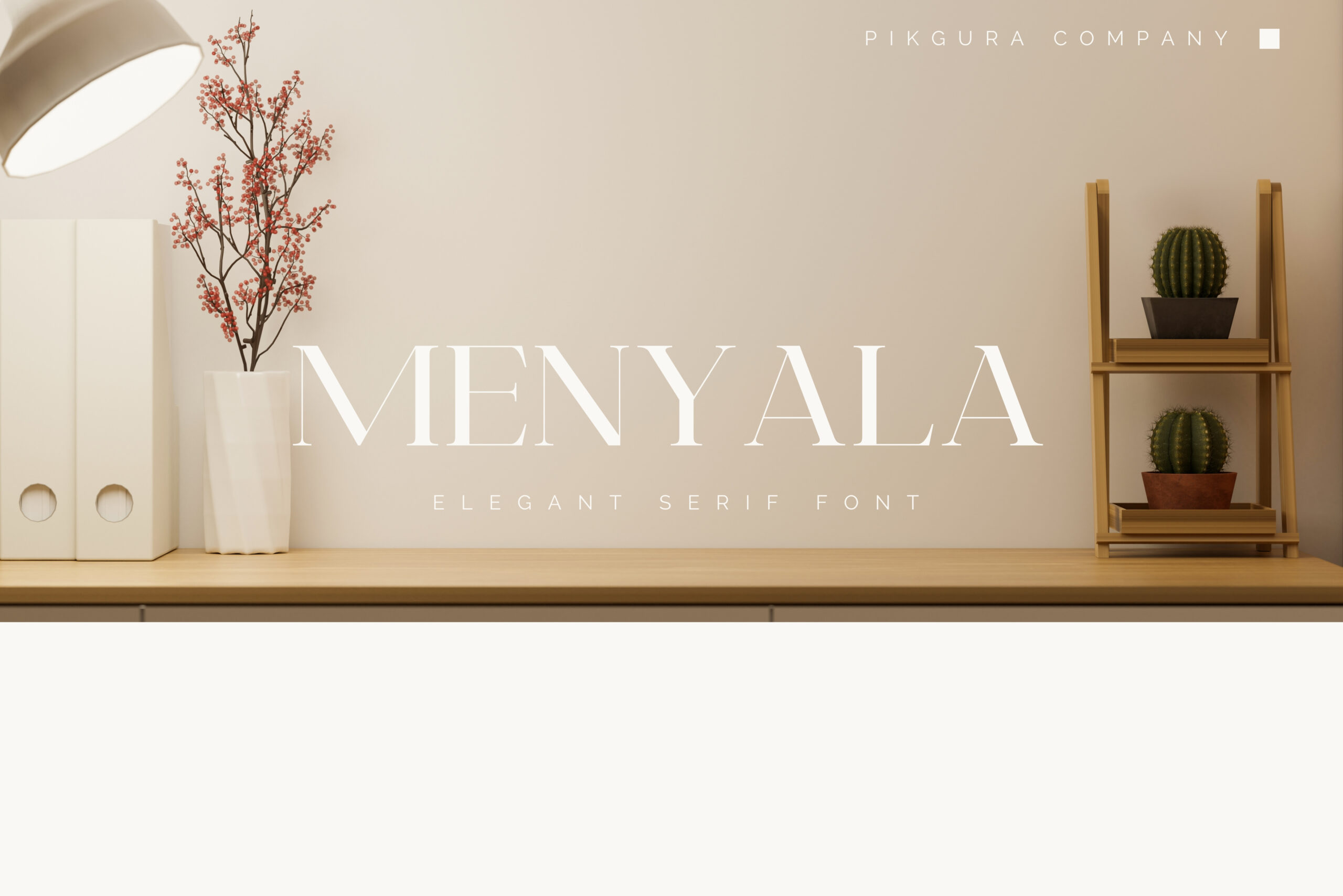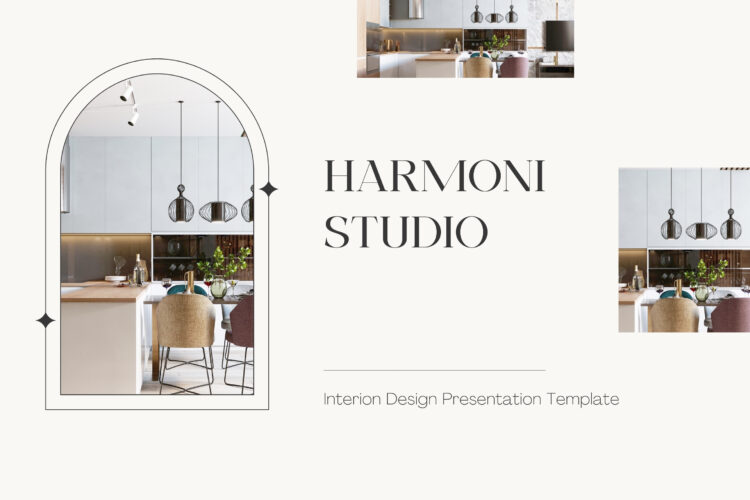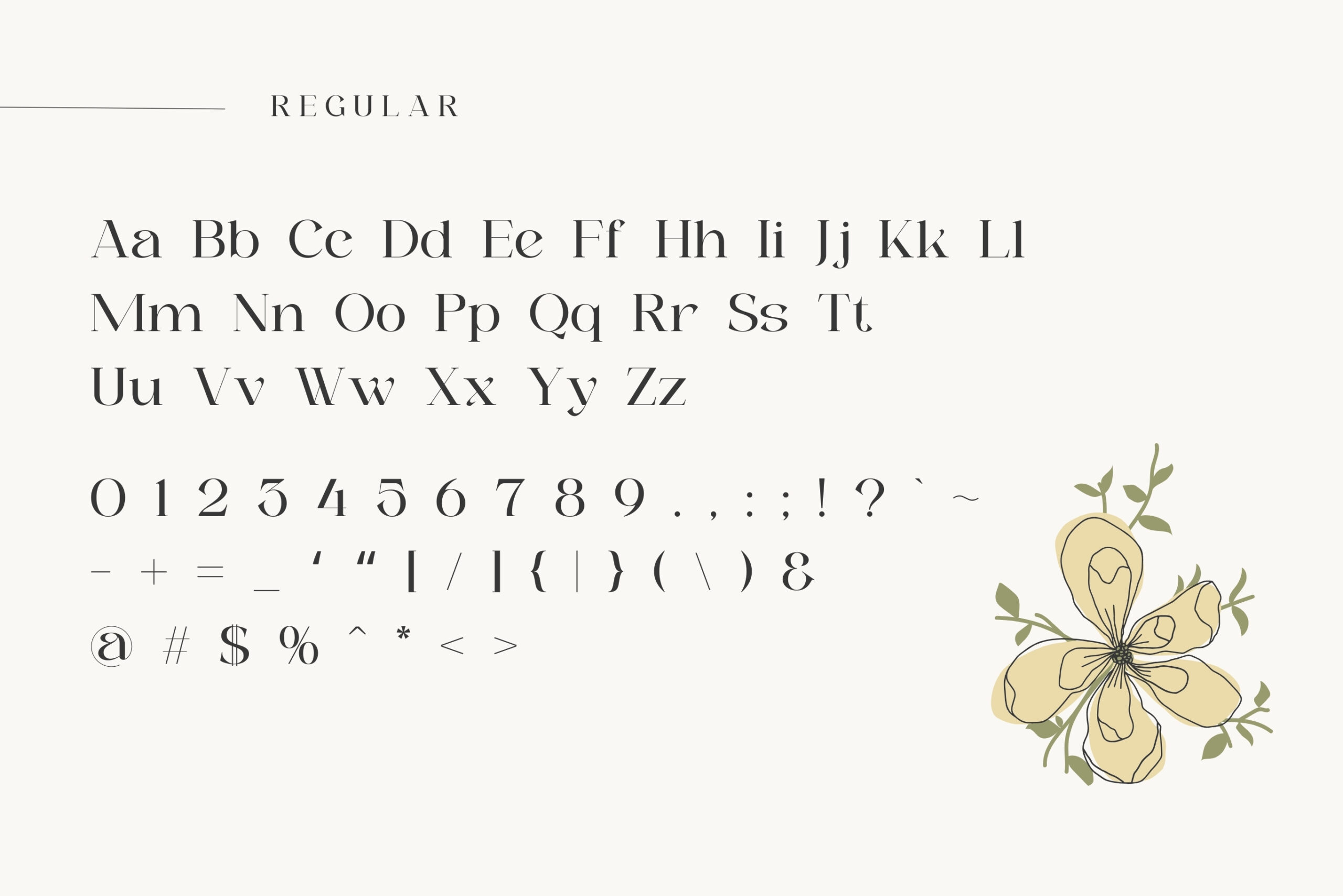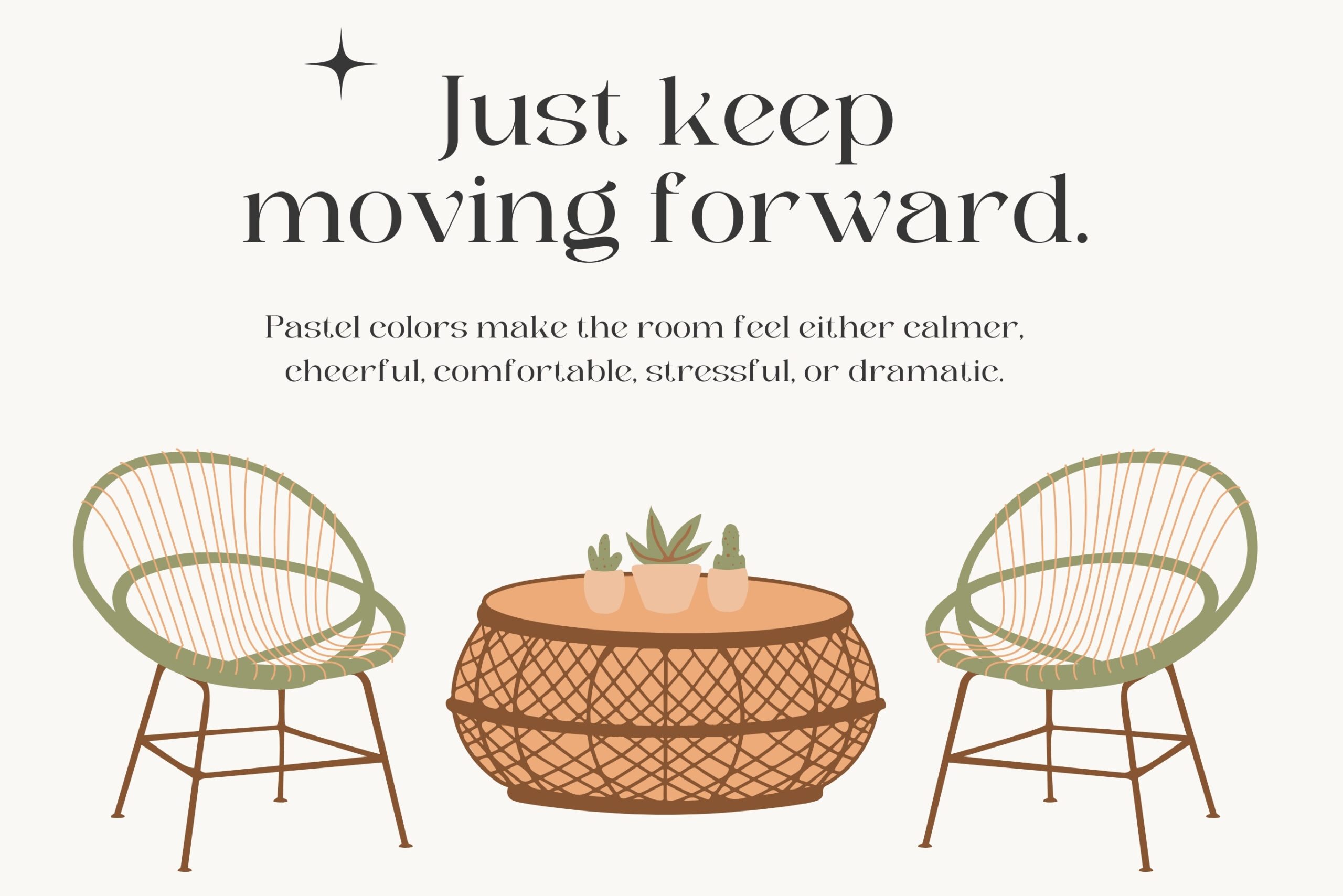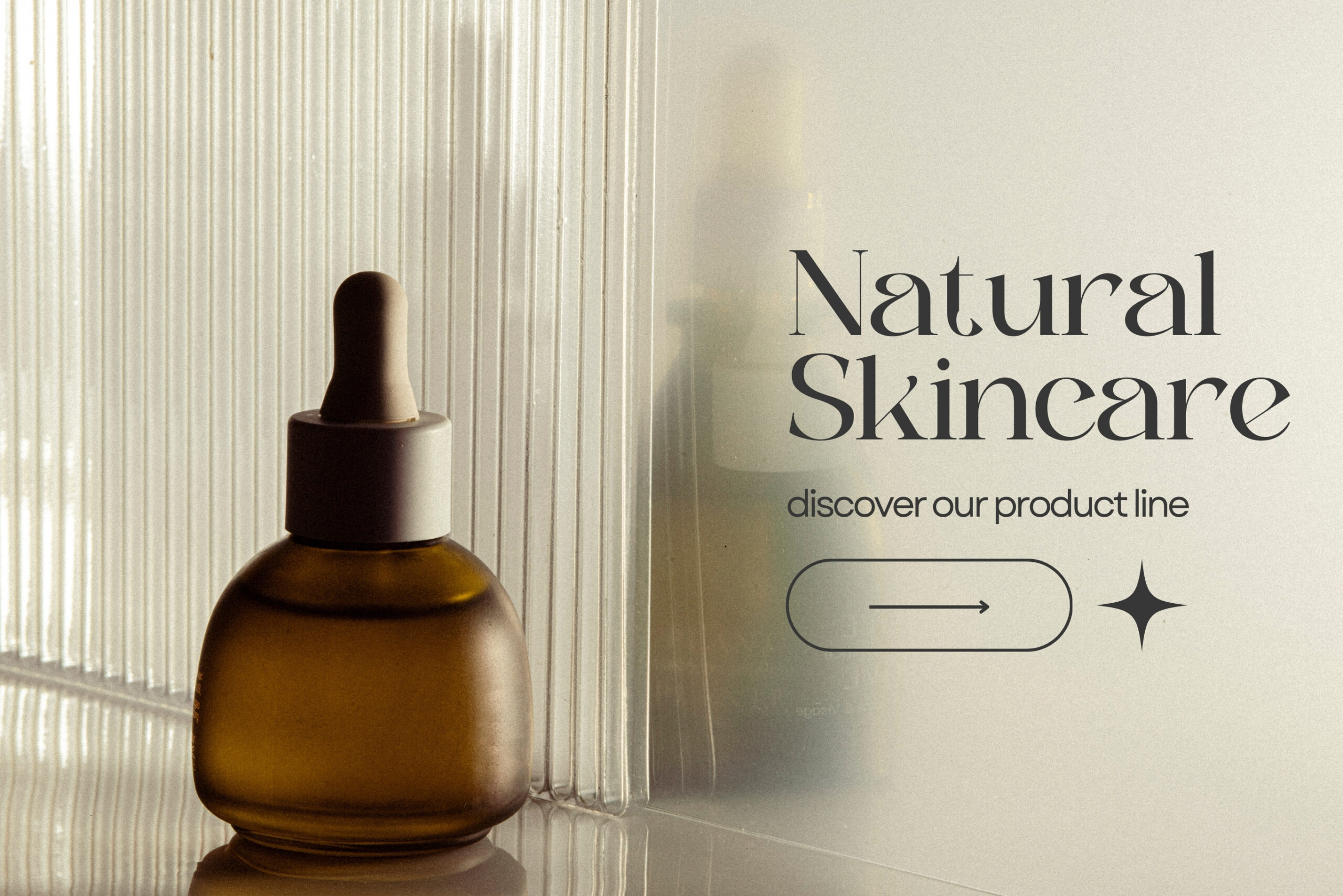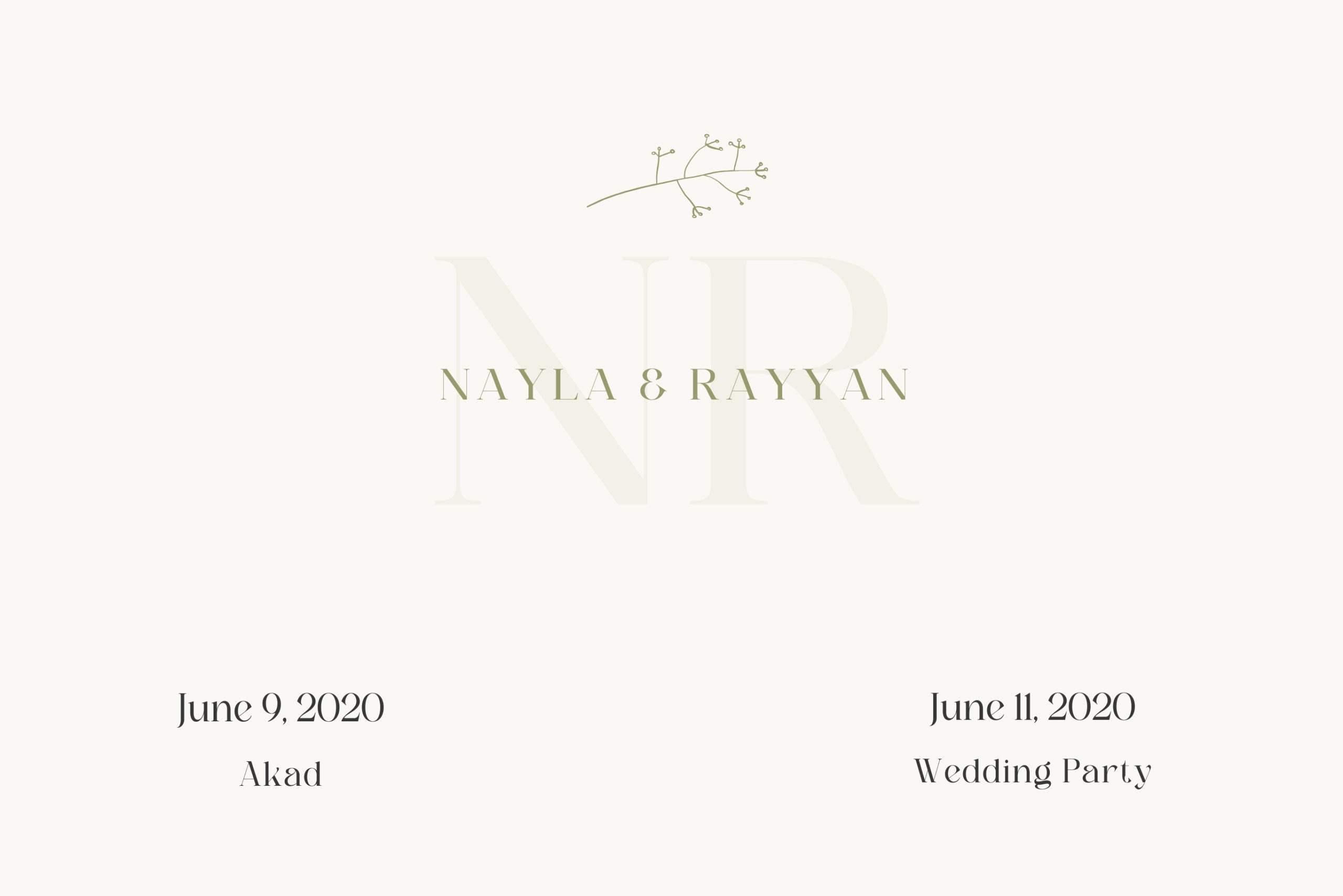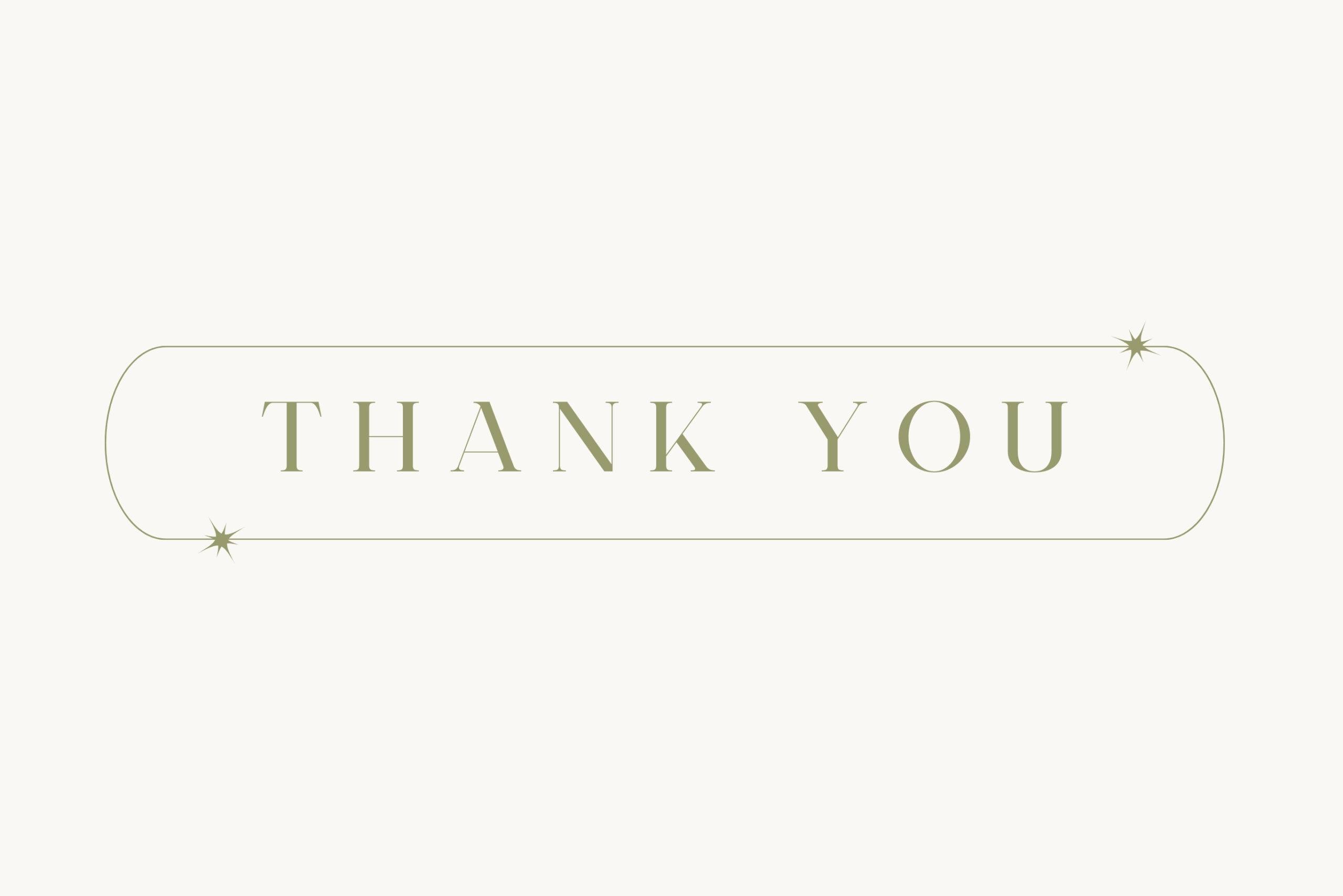
menyala font
Menyala - Regular
Menyala - Italic
Elevate your design projects with Menyala—a serif font full of elegance. Its fine serifs and graceful curves make it ideal for wedding invites, fashion magazines, beauty products, and branding. Use it to give your work a clean, high‑quality look that stands out.
Menyala gives you uppercase and lowercase letters, numbers, basic punctuation, and an italic version. It works for both print and digital designs. The font comes in OTF, TTF, and WOFF formats. You’ll find it simple to install and use.
Choose Menyala to bring bold elegance and unique charm to your next piece. Your design will shine with style.
Menyala – Serif Font